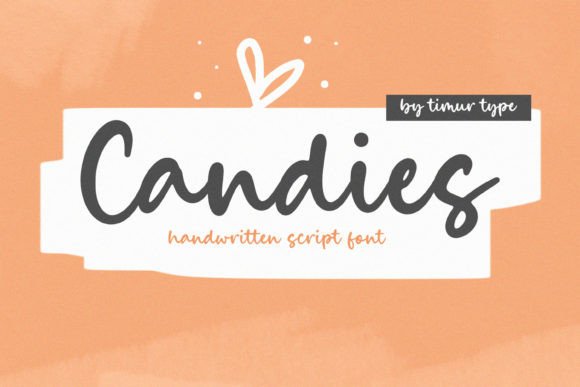
The Sweet Spot: Discovering the Charm of Candies Font
I’ll never forget the time I was working on a project for a client’s craft business, and I just couldn’t find the right font to match their brand’s playful vibe. I scrolled through page after page of Google results, but nothing seemed quite right. That was until I stumbled upon Candies Font – a fresh and playful handwritten font that instantly captured the essence of my client’s brand. In this article, I’ll share my experience with Candies Font, its features, and how to make the most of it in your designs.
An Honest Review of Candies Font
- ✨ Fresh and playful handwritten style that’s perfect for crafty ideas
- ✅ Casual charm that adds a personal touch to any design
- 💫 Highly legible, even at smaller font sizes
- 🎨 Versatile and suitable for a wide range of creative projects
While Candies Font is an excellent choice for many projects, there are a few things to keep in mind:
- 🤔 Limited availability of stylistic alternates, which may not offer as much variation as some users would like
- ⚠️ May not be the best choice for very formal or professional projects, as its playful nature may not fit the tone
A Practical Guide to Using Candies Font
Candies Font comes with a range of OpenType features and glyphs that can add variety and interest to your designs. These may include:
| Feature | Description |
| Stylistic Alternates | Offers variations of letters and numbers for added visual interest |
| Glyphs | Provides additional characters and symbols to enhance your design |
The Story Behind Candies Font
Candies Font was designed with the intention of capturing the playful, carefree spirit of childhood. Its creator aimed to craft a font that would be both fun and legible, perfect for a wide range of creative projects. Whether you’re designing for a client or working on a personal project, Candies Font is sure to bring a smile to your face.
| Author | Timur type |
Q: What type of projects is Candies Font best suited for?
A: Candies Font is versatile and can be used for a variety of projects, including craft business branding, social media graphics, and party invitations.